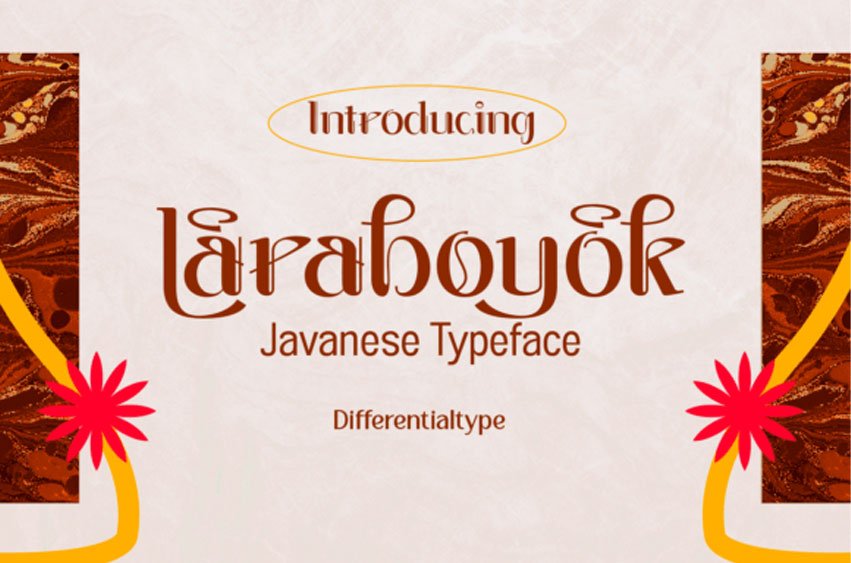
Laraboyok Font is an ethnic display font inspired by Javanese script.
This font is perfect for displays with traditional and ethnic themes, and also works great for logos, branding, greeting cards, invitation cards, advertisements, titles, headlines, book titles, stickers, packaging, quotes, posters, t-shirts/apparel, billboards, etc.